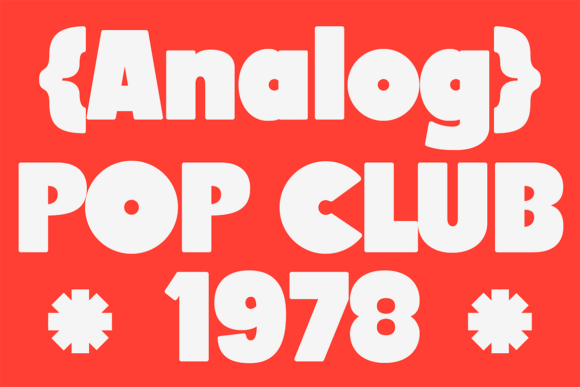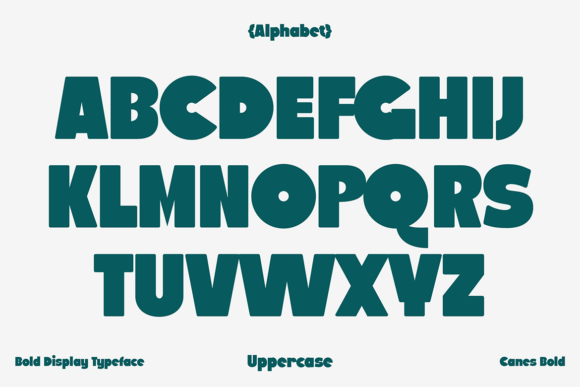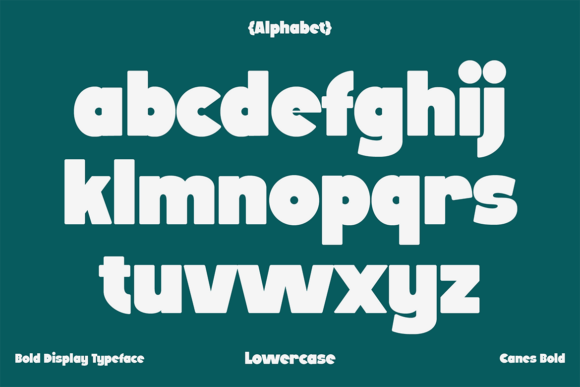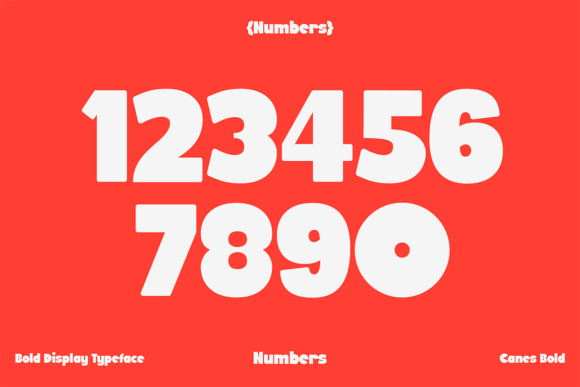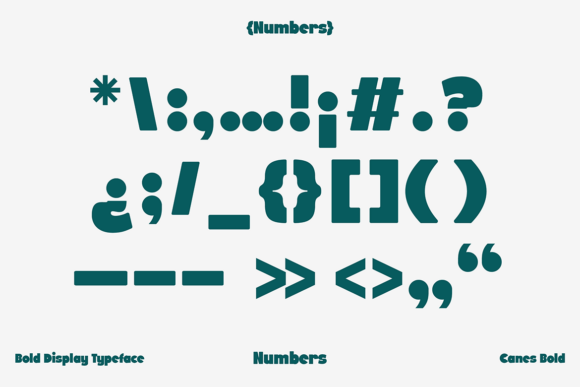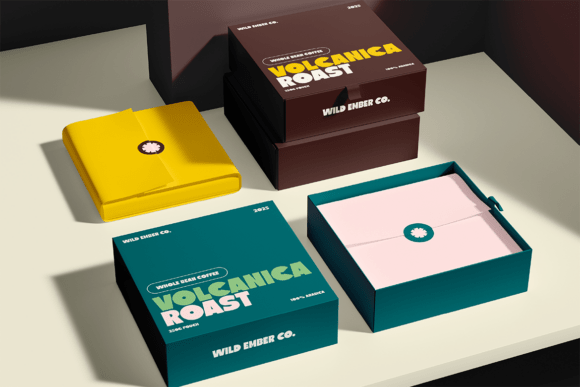
Introducing Canes Font: Elevate Your Designs with Artistic Elegance
In the world of typography, a font can make or break a design. For crafters, designers, and artists, finding the perfect typeface can be a daunting task. However, with Canes Font, your search is over. This artistic typeface is versatile, elegant, and flexible, making it the perfect complement to any design theme. In this article, we’ll dive into the world of Canes Font, exploring its features, benefits, and uses.
Unleash Your Creativity with Canes Font
Canes Font is designed to provide the ultimate flexibility for designers and crafters. With this font, you can seamlessly modify the text and color to make it uniquely yours. Whether you’re working on a logo, branding project, or social media graphics, Canes Font adapts effortlessly to your creative vision.
One of the standout features of Canes Font is its ability to be tailored to suit various design themes. From elegant and sophisticated to bold and playful, Canes Font can be transformed to fit your style. This versatility makes it an excellent choice for designers who need a font that can keep up with their creative demands.
Top-Quality Font for Refined Designs
The high-resolution quality of Canes Font means that it can be scaled up or down without losing any of its elegance or clarity. Whether you’re working on a large billboard or a small business card, Canes Font remains refined and captivating.
Key Features of Canes Font
- Artistic and Elegant Design: Canes Font boasts an artistic and elegant design that adds a touch of sophistication to any project.
- Flexible and Versatile: Seamlessly modify the text and color to make Canes Font uniquely yours.
Who Can Benefit from Canes Font?
Canes Font is perfect for a variety of designers and crafters, including:
- Graphic Designers: Elevate your branding, logos, and marketing materials with elegant typography.
- Crafters: Add a touch of sophistication to your handmade products, such as wedding invitations, business cards, and more.
- Social Media Influencers: Stand out on social media with eye-catching graphics and refined typography.
- Web Designers: Enhance your website’s typography and user experience with Canes Font.
In conclusion, Canes Font is an artistic typeface that offers the perfect blend of elegance, flexibility, and versatility. With its high-resolution OTF format and compatibility with design software, Canes Font guarantees top-quality typography for your designs. Whether you’re a graphic designer, crafter, or social media influencer, Canes Font is the perfect choice for elevating your designs and adding a touch of sophistication.
So why wait? Introducing Canes – the ultimate artistic typeface for designers and crafters. Get ready to take your designs to the next level with Canes Font.